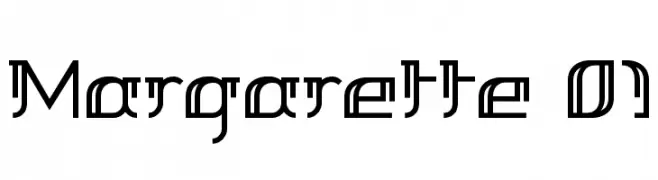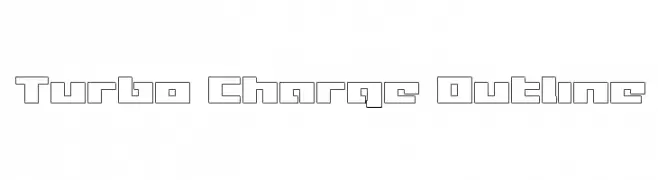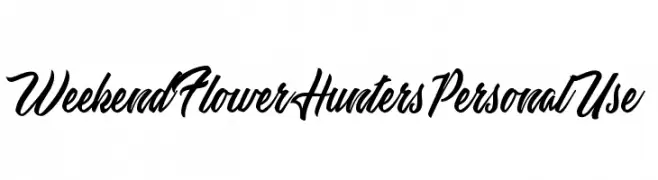
A bold, cursive font with elegant, flowing strokes.
A bold, expressive script font with dynamic, flowing strokes.
A bold, cursive font with a smooth, flowing style.
A modern, geometric font with sharp edges and a futuristic style.
A bold, geometric font with a futuristic and industrial design.
A bold, italicized font with a halftone effect, exuding a futuristic and dynamic style.
A bold, italic, and expanded font with a dynamic and futuristic style.
A bold, geometric outline font with a futuristic and industrial aesthetic.